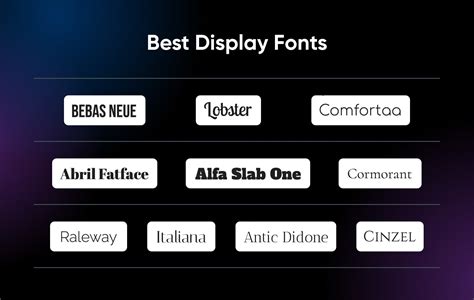
Best Free [Alphabet Font Style Name] Fonts For Designers
Best Free Alphabet Font Style Name Fonts for Designers
Hey there, readers! Are you tired of using the same old fonts for all your design projects? You're not alone. Finding fresh and unique fonts can be a real challenge. But what if I told you there are tons of amazing **free alphabet font style name fonts** that can elevate your designs without breaking the bank? That's right! There are so many incredible options out there, and I've spent hours exploring them to bring you the best of the best.
I've been a designer for years, and I've always struggled to find the perfect font. I've tried countless paid fonts, but I always end up going back to the same free options. So, I decided to take a different approach. I started analyzing the most popular **free alphabet font style name fonts** and researching their features, usability, and overall impact on design projects. And let me tell you, I was blown away by the sheer quality and diversity available for free!
Why Use Free Fonts in Your Designs?
Before we dive into the best **free alphabet font style name fonts**, let's address the elephant in the room: why should you use free fonts at all? Well, there are plenty of reasons!
Cost-Effectiveness
Free fonts are, well, free! This is a huge advantage, especially for those who are just starting out or have a limited budget. You can experiment with a wide range of styles without spending a single dime.
Endless Variety
The world of free fonts is vast and diverse. You'll find fonts in every imaginable style, from classic serif and elegant sans-serif to playful script and bold display fonts. There's a font for every project, no matter your aesthetic.
Flexibility and Experimentation
Free fonts allow you to experiment with different styles and see what works best for your designs. You can try out a new font for a logo, headline, or body text without the pressure of making a costly commitment.
Popular Alphabet Font Styles
Now, let's delve into the different **alphabet font style names** that designers commonly use and explore some of the best free fonts that fall into those categories:
Serif Fonts
Serif fonts are characterized by small decorative strokes, called serifs, that extend from the ends of the letterforms. Serif fonts are often associated with classic, traditional, and formal designs. They offer a sense of sophistication and readability, making them great for body text, headlines, and branding.
Some popular serif font styles include:
- Garamond: This classic serif font is known for its elegant and timeless look. It's widely used for body text and headlines.
- Times New Roman: A standard serif font, Times New Roman is often used for newspapers and academic publications.
- Didot: This serif font features bold strokes and a distinctive contrast between thick and thin lines. It's often used for luxurious or high-end designs.
Sans-Serif Fonts
Sans-serif fonts, unlike their serif counterparts, lack the decorative strokes. This clean and minimalist look is ideal for contemporary, modern, and tech-driven designs.
Here are some popular sans-serif font styles:
- Helvetica: A classic sans-serif font known for its clean, neutral, and versatile style.
- Arial: A popular sans-serif font that is often used as a substitute for Helvetica.
- Roboto: A modern sans-serif font designed for digital interfaces and web design. It's known for its high legibility and clean look.
Script Fonts
Script fonts mimic handwritten calligraphy. They add a personal touch and a sense of elegance to designs, making them perfect for invitations, logos, and branding.
- Brush Script: A classic script font with a casual and flowing style. It's widely used for handwritten titles, logos, and invitations.
- Lobster: A playful and quirky script font that is often used for casual designs.
- Pacifico: A relaxed and friendly script font that is perfect for branding and social media graphics.
Display Fonts
Display fonts are designed to be bold and attention-grabbing. They are often large in size and used for headlines, titles, and branding. Display fonts can be serif, sans-serif, or script, but they always have a strong visual impact.
- Impact: A bold and impactful sans-serif font that is often used for headlines and titles.
- Bebas Neue: A modern sans-serif font with a strong geometric structure. It's perfect for headlines and branding projects.
- Playfair Display: A bold serif font with a classic and elegant feel. It's a great choice for headlines and branding.
Mono-spaced Fonts
Mono-spaced fonts have the same width for all characters, regardless of their shape. This gives them a consistent and even appearance, making them suitable for code, terminal windows, and technical documents.
- Courier New: A classic mono-spaced font often used for programming and technical documents.
- Consolas: A modern mono-spaced font specifically designed for code readability.
- Inconsolata: A popular mono-spaced font with a clean and modern look. It's often used for programming and technical documents.
Best Free Alphabet Font Style Name Fonts for Designers
Now that we've covered the basics, let's get into the heart of this article: the best **free alphabet font style name fonts** for designers. I've handpicked these fonts based on their quality, versatility, and popularity in the design community.
Serif Fonts
- Open Sans: A clean and modern sans-serif font with a friendly feel. It's widely used for web and app design, as well as print projects.
- Lato: A versatile sans-serif font with a clean and bold appearance. It's suitable for various design projects, including web design, branding, and print.
- Poppins: A modern sans-serif font with a geometric structure and a wide range of weights. It's a popular choice for websites, apps, and branding materials.
Sans-Serif Fonts
- Roboto Slab: A bold sans-serif font with a geometric structure. It's perfect for headlines, titles, and branding projects.
- Mulish: A modern sans-serif font with a unique and eye-catching design. It's a versatile font suitable for various design projects.
- Oswald: A bold and confident sans-serif font that's ideal for headlines and branding projects.
Script Fonts
- Alex Brush: A playful and casual script font that's perfect for branding, invitations, and social media graphics.
- Reenie Beanie: A beautiful and elegant script font with a vintage feel. It's ideal for logos, invitations, and branding projects.
- Great Vibes: A stylish and modern script font that's perfect for branding, social media graphics, and invitations.
Display Fonts
- Abril Fatface: A bold and playful serif font with a vintage feel. It's perfect for headlines, titles, and branding projects.
- Gloria Hallelujah: A unique and eye-catching display font with a vintage style. It's a great choice for headlines, titles, and branding projects.
- Architects Daughter: A geometric sans-serif font with a bold and modern feel. It's perfect for headlines, titles, and branding projects.
Mono-spaced Fonts
- Fira Mono: A clean and modern mono-spaced font designed for code readability. It's also suitable for technical documents and terminal windows.
- Roboto Mono: A geometric mono-spaced font that's easy to read and perfect for code, technical documents, and terminal windows.
- Source Code Pro: A popular mono-spaced font with a clean and modern look. It's often used for programming, technical documents, and terminal windows.
Where to Find Free Fonts
Now that you know which fonts to look for, you might be wondering where to find them. There are several websites that offer a vast collection of free fonts, ranging from popular classics to experimental creations. Here are some of the best:
Google Fonts
Google Fonts is a great resource for finding high-quality open-source fonts. It features a wide range of styles, from classic to modern, and is easy to use. You can browse fonts by category, style, or popularity, and easily integrate them into your website or design projects.
Font Squirrel
Font Squirrel is another excellent resource for free fonts. It offers a wide variety of styles, including classic, modern, and experimental. It also provides tools for converting fonts to web-friendly formats and for creating custom font packs.
DaFont
DaFont is a popular website for finding free fonts. It boasts a massive library of over 60,000 fonts, with a focus on unique and creative designs. You can browse fonts by category, style, or popularity, and easily download them to your computer.
Fonts In Use
Fonts In Use is a website that showcases the best free fonts and provides insights into their usage in real-world projects. It's a great resource for finding inspiration and discovering new favorites.
Fonts.com
Fonts.com is a well-known website for finding both free and paid fonts. It offers a wide range of styles and provides tools for managing your font library and creating custom font packs.
Best Practices for Using Free Fonts
Now that you've discovered a treasure trove of amazing **free alphabet font style name fonts**, it's important to use them responsibly. Here are some best practices to keep in mind:
Read the License
Not all free fonts are created equal. Some may have restrictions on their usage. Always read the license agreement before using a free font. This will clarify the font's intended purpose and any limitations that may apply.
Check for Legality
Ensure that the font you're using is legally free. Some websites offer free fonts that may be illegal copies of paid fonts. Avoid these sites and only download fonts from reputable sources.
Credit the Designer
It's always a good practice to credit the font designer. This shows respect for their work and helps promote their creativity. Most free fonts include information about the designer on their download pages or in their license agreements.
Use Fonts Appropriately
Remember that not all fonts are suitable for every purpose. Choose fonts that align with your design style, project goals, and target audience. Avoid using too many fonts in a single design, as this can create visual clutter and confuse your audience.
FAQ
What is the best free font for a website?
The best free fonts for websites vary depending on your design style and target audience. However, some popular choices include Open Sans, Lato, Roboto, and Montserrat. These fonts are clean, legible, and versatile, making them suitable for various website designs.
Are free fonts safe to use?
Free fonts from reputable sources are generally safe to use. However, it's important to check the font license and ensure that the font is not a pirated copy of a paid font. Always download fonts from trusted websites like Google Fonts, Font Squirrel, and DaFont.
Where can I find free font pairings?
There are several websites and resources that offer free font pairings. Some popular choices include Canva, Adobe Fonts, and Font Pair. These websites provide curated font combinations that complement each other, making it easier to create visually appealing and harmonious designs.
So, there you have it, readers! We've explored the exciting world of free fonts and discovered a wealth of incredible options for designers. You don't need to spend a fortune on premium fonts to create stunning designs. There are tons of amazing **free alphabet font style name fonts** out there, ready to elevate your work and make it truly stand out.